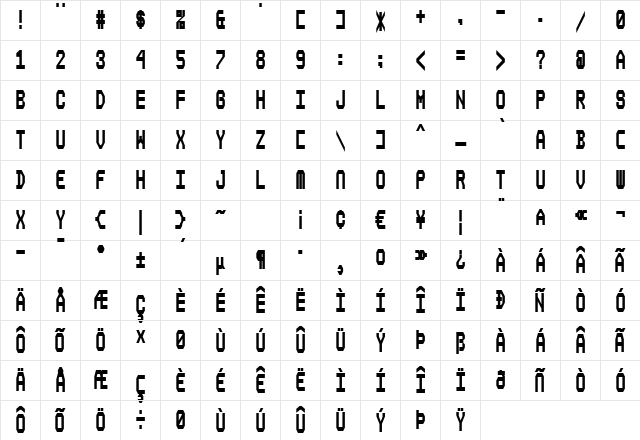
Composite ExtraBold
| Foundry | YouWorkForThem |
| Designer | Michael Cina |
Design Context for Composite Typeface
Composite takes a measured approach to typography — its balanced proportions and neutral character make it a reliable workhorse for both digital and print work. The heavy weight commands attention and anchors typographic hierarchies.